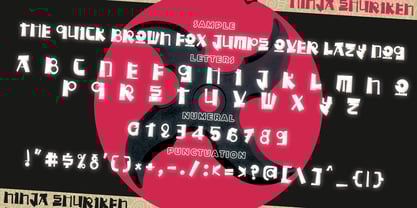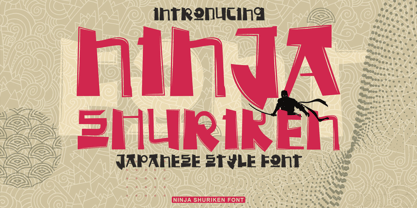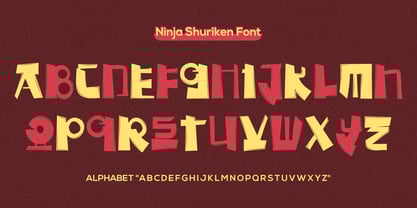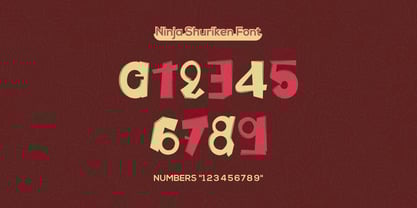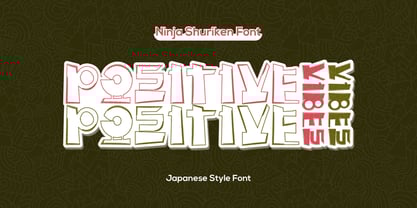
Ninja Shuriken
by Beast Designer
The Ninja Shuriken Font Family was designed by Mohammed Lamjidi and published by Beast Designer. Ninja Shuriken contains 1 styles.
Ninja Shuriken Font is a bold and dynamic typeface inspired by the sleek and sharp aesthetics of ninja weaponry.
Featuring angular strokes, edgy cuts, and a modern flair, this font is perfect for action-packed designs, gaming logos, or any project that needs a stealthy, adventurous vibe.
Designers: Mohammed Lamjidi
Publisher: Beast Designer
Foundry: Beast Designer